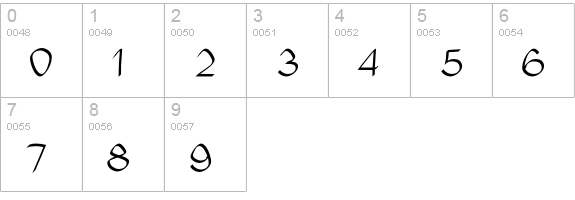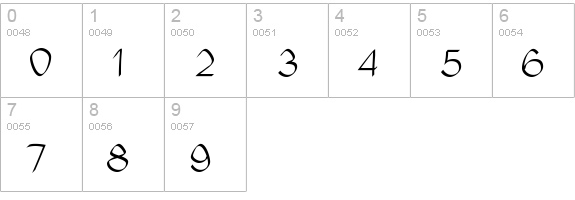
Kisuaheli Font Details
Introducing Kisuaheli, a stunning and versatile font that captures the essence of elegance and modernity. With its sleek and clean lines, this typeface is perfect for adding a touch of sophistication to any design project. Kisuaheli font is a magnificent creation that combines the beauty of simplicity with a contemporary twist. Its smooth and fluid strokes create a harmonious balance, making it visually pleasing to the eye. Whether you're designing a logo, creating a website, or working on a branding project, Kisuaheli will effortlessly elevate your designs to new heights. One of the most remarkable aspects of Kisuaheli font is that it is absolutely free. Yes, you heard it right! You can download this remarkable font without spending a penny. Thanks to its generous creators, Kisuaheli is freely available to download at FontsMarket.com. This means that you can now have access to this incredible typeface without any limitations or restrictions. Not only does Kisuaheli bring aesthetic appeal to your designs, but it also offers a wide range of versatility. With multiple weights and styles to choose from, you can easily adapt Kisuaheli to suit your specific design needs. Whether you prefer a bold and daring look or a more subtle and refined style, this font has got you covered. Kisuaheli font is a true gem in the world of typography, offering exceptional quality and beauty without the hefty price tag. Don't miss out on this incredible opportunity to enhance your creative projects with a font that is both captivating and free. Visit FontsMarket.com today and immerse yourself in the exquisite world of Kisuaheli font.